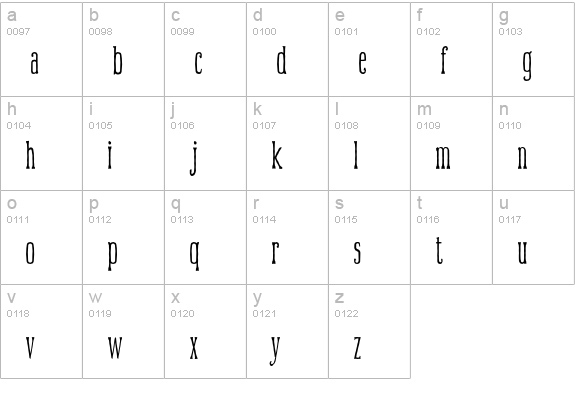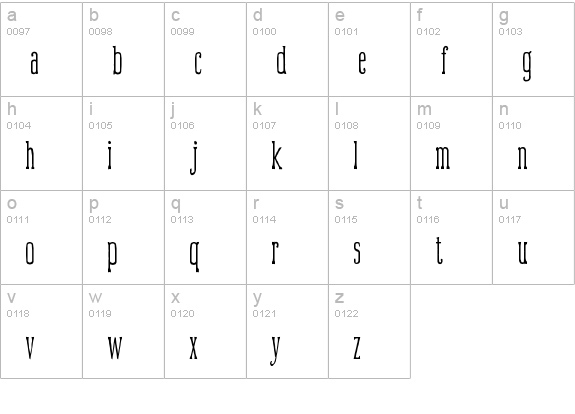
McFoodPoisoning3 Font Details
Introducing McFoodPoisoning3 font - a unique and quirky display font that is perfect for adding a touch of fun to your designs. With its playful and slightly off-kilter letterforms, McFoodPoisoning3 is sure to capture attention and make a statement. This font is freely available to download at FontsMarket.com, making it accessible to anyone looking to add a little bit of personality to their projects. Whether you're designing a poster, creating a logo, or working on a branding project, McFoodPoisoning3 is a versatile font that will help your creations stand out. With its bold and eye-catching style, McFoodPoisoning3 is perfect for everything from social media graphics to packaging design. Embrace the playful charm of this font and elevate your designs to new heights. Download McFoodPoisoning3 today and let your creativity shine!